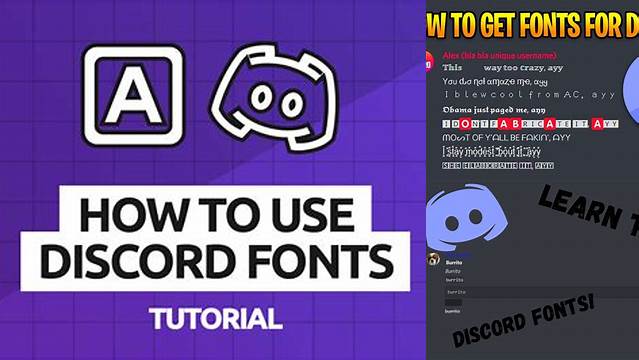
Discord Fonts: How To Change Text Style
Hey guys! Ever wanted to spice up your Discord chats with different fonts? Discord is an amazing platform for connecting with friends, communities, and even professional groups. But let’s face it, the default font can get a little monotonous after a while. Luckily, there are some cool tricks you can use to make your text stand out and express yourself in new ways. In this article, we’ll dive into various methods to change fonts on Discord, from using Markdown formatting to leveraging online font generators. Whether you want to add emphasis, create a unique aesthetic, or simply make your messages more readable, we've got you covered. We'll explore the ins and outs of Discord font styling, so you can become a font master in no time!
Discord, while not offering a direct font-selection menu like a word processor, provides several formatting options that allow you to alter the appearance of your text. These options range from simple bolding and italicizing to more creative solutions involving Unicode characters and third-party tools. Understanding these methods can significantly enhance your Discord experience, making your chats more engaging and visually appealing. So, let's jump in and discover how to make your Discord text truly pop! We'll cover everything from the basics of Markdown to more advanced techniques, ensuring that you have all the knowledge you need to customize your messages. Get ready to transform your Discord chats into a canvas of creativity and expression!
Understanding Discord's Text Formatting
Before we jump into the different methods, let's understand how Discord handles text formatting. Discord primarily uses Markdown, a lightweight markup language that allows you to format text using simple symbols. Think of it as a secret code that Discord interprets to display your text in a specific way. This is the key to changing how your text looks without needing any fancy software. Markdown is super versatile and easy to learn, making it a fantastic tool for anyone looking to add some flair to their messages. The best part? It’s built right into Discord, so you don’t need to install anything extra!
Markdown uses a set of symbols to indicate different formatting options. For example, surrounding text with asterisks (*) will make it italic, while using double asterisks (**) will make it bold. We’ll delve deeper into these symbols and their functions in the next sections. But for now, just know that Markdown is your best friend when it comes to formatting text on Discord. It’s a simple yet powerful system that can transform your plain text into eye-catching messages. By mastering Markdown, you'll unlock a whole new level of expression in your Discord chats. Plus, it’s not just for Discord – Markdown is used on many other platforms too, so learning it is a valuable skill in general. So, whether you want to emphasize a point, make your text more readable, or just add some personality to your messages, Markdown is the way to go!
Method 1: Using Markdown Formatting
Okay, let’s get into the nitty-gritty of Markdown! This is where the magic happens. Markdown is the built-in formatting language that Discord uses, and it’s super easy to pick up. By using a few simple symbols, you can bold, italicize, underline, and strikethrough your text. Think of it as giving your words a little makeover! Mastering these basics will instantly elevate your Discord game and make your messages stand out. Plus, it’s a skill you can use on other platforms too, making it a win-win situation. So, let's dive in and explore the wonderful world of Markdown!
- Bold Text: To make your text bold, simply surround it with double asterisks (**). For example, typing This is bold text will display as This is bold text. Bolding is perfect for emphasizing important points or making key words stand out. It’s a simple yet effective way to grab attention in a chat. You can use it to highlight deadlines, important announcements, or just to add some extra oomph to your messages. Bold text is a fantastic tool in your Discord formatting arsenal. It’s clean, clear, and gets the job done.
- Italic Text: If you want to add a touch of elegance or subtlety to your text, italics are the way to go. To italicize text, surround it with single asterisks (*). For example, typing This is italic text will display as This is italic text. Italics are great for adding emphasis in a softer way than bolding. They can be used for quotes, thoughts, or to create a sense of flow in your writing. Italic text can make your messages look more polished and professional, especially in community or server settings.
- Underline Text: Underlining is another great way to emphasize text. To underline text on Discord, you need to use double underscores (__). For example, typing __This is underlined text__ will display as __This is underlined text__. Underlining can be particularly useful for highlighting links or important phrases. It’s a classic formatting option that adds a clear visual cue to your text, making it easy for readers to spot key information. Underlined text is a staple in text formatting and a valuable tool on Discord.
Strikethrough Text: Want to show that something is no longer relevant or add a bit of humor to your message? Strikethrough is the answer! To strikethrough text, surround it with double tildes (~~). For example, typingThis is strikethrough textwill display asThis is strikethrough text. Strikethrough is perfect for showing edits, corrections, or just adding a playful touch to your messages.Strikethrough textcan be a fun and effective way to communicate on Discord.Code Text: If you're sharing code snippets or want to highlight a specific word or phrase, using code formatting is a great option. To format text as code, surround it with single backticks (). For example, typingThis is code textwill display asThis is code text. Code formatting uses a monospaced font, which makes it easy to distinguish code from regular text.Code text` is invaluable for developers or anyone sharing technical information on Discord.Code Block: For longer code snippets or multi-line code, you can use a code block. To create a code block, surround your text with triple backticks (). This will display the text in a separate block with a monospaced font.Code blocks``` are essential for sharing larger chunks of code or scripts on Discord. They keep your code organized and readable, making it easier for others to understand and use.
By mastering these Markdown techniques, you can significantly enhance your Discord communication. Experiment with different combinations to create unique and engaging messages. Bold italics (This is bold italic text), underlined bold text (__This is underlined bold text__), and more – the possibilities are endless! So go ahead, give it a try, and watch your Discord chats come to life!
Discord is a fantastic platform for connecting with friends, communities, and colleagues. By mastering these font techniques, you can take your Discord experience to the next level and make your messages truly stand out. Whether you’re sharing important announcements, engaging in lively discussions, or simply chatting with friends, the ability to customize your text adds a whole new dimension to your interactions. So, embrace your newfound font skills, and make your Discord chats shine! Happy chatting, and may your messages always be stylish and expressive!